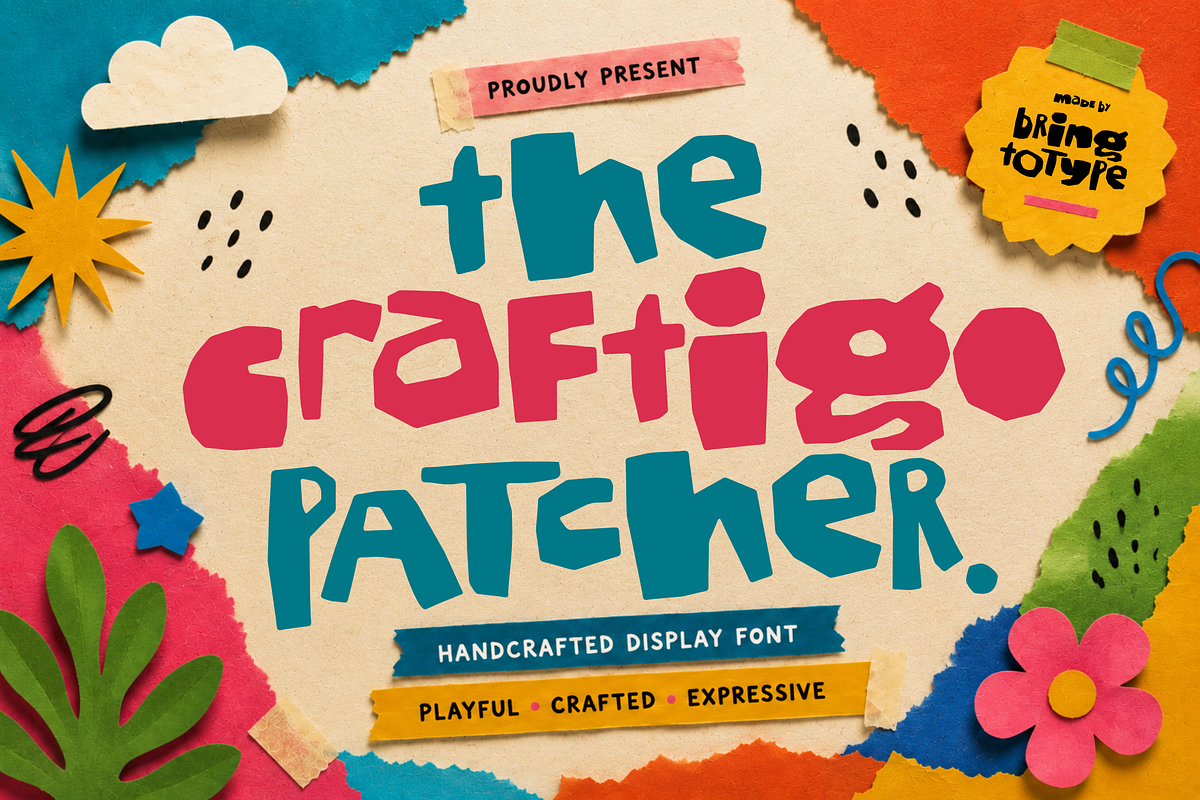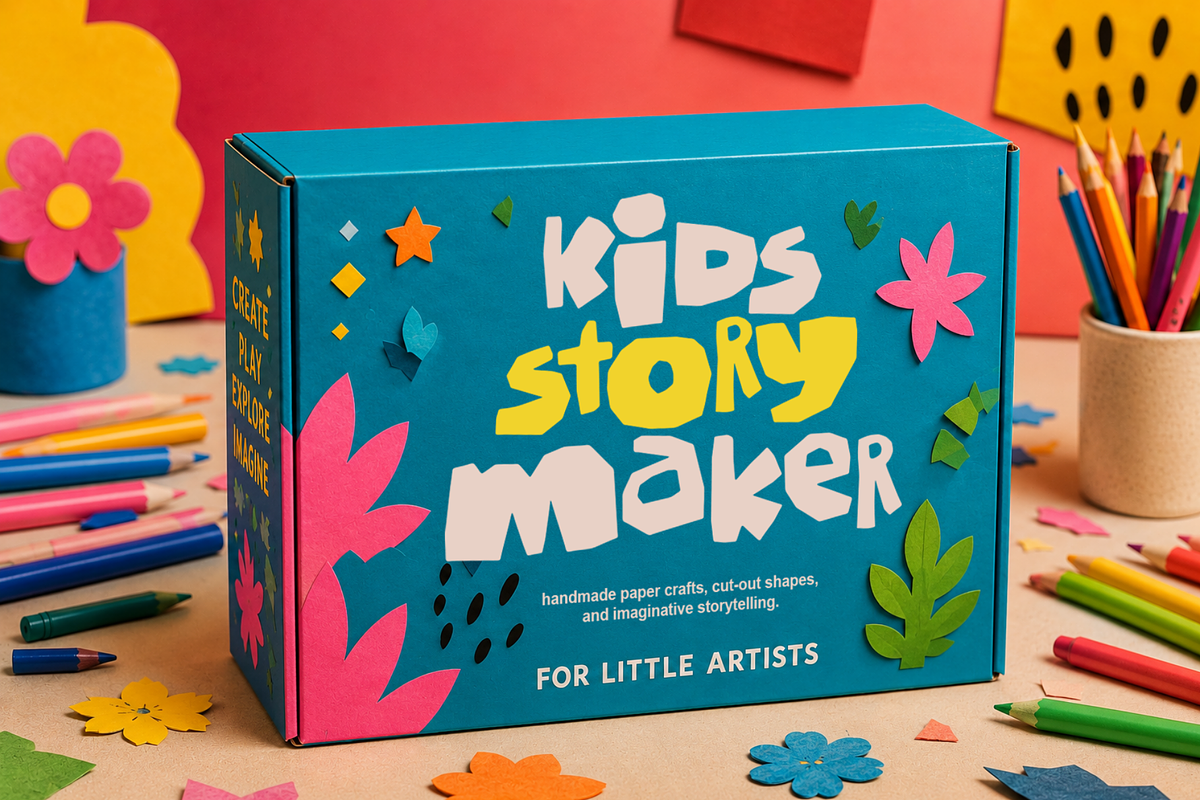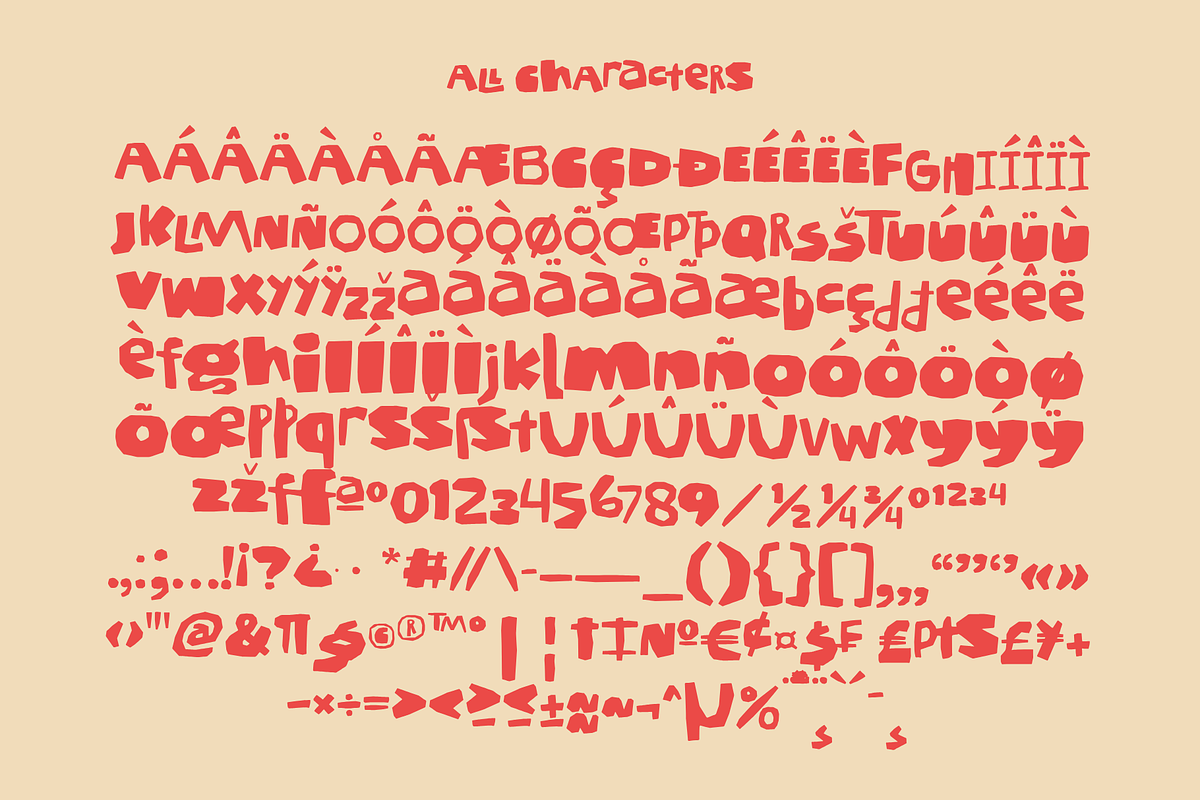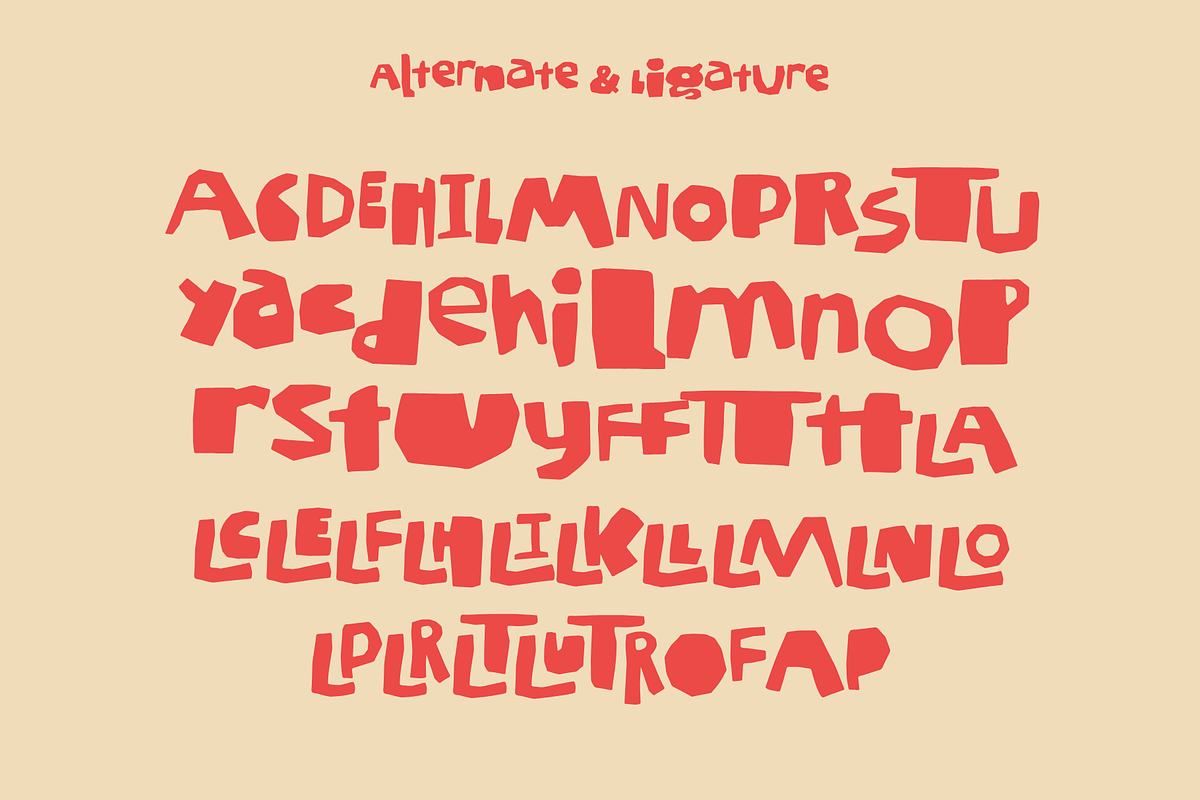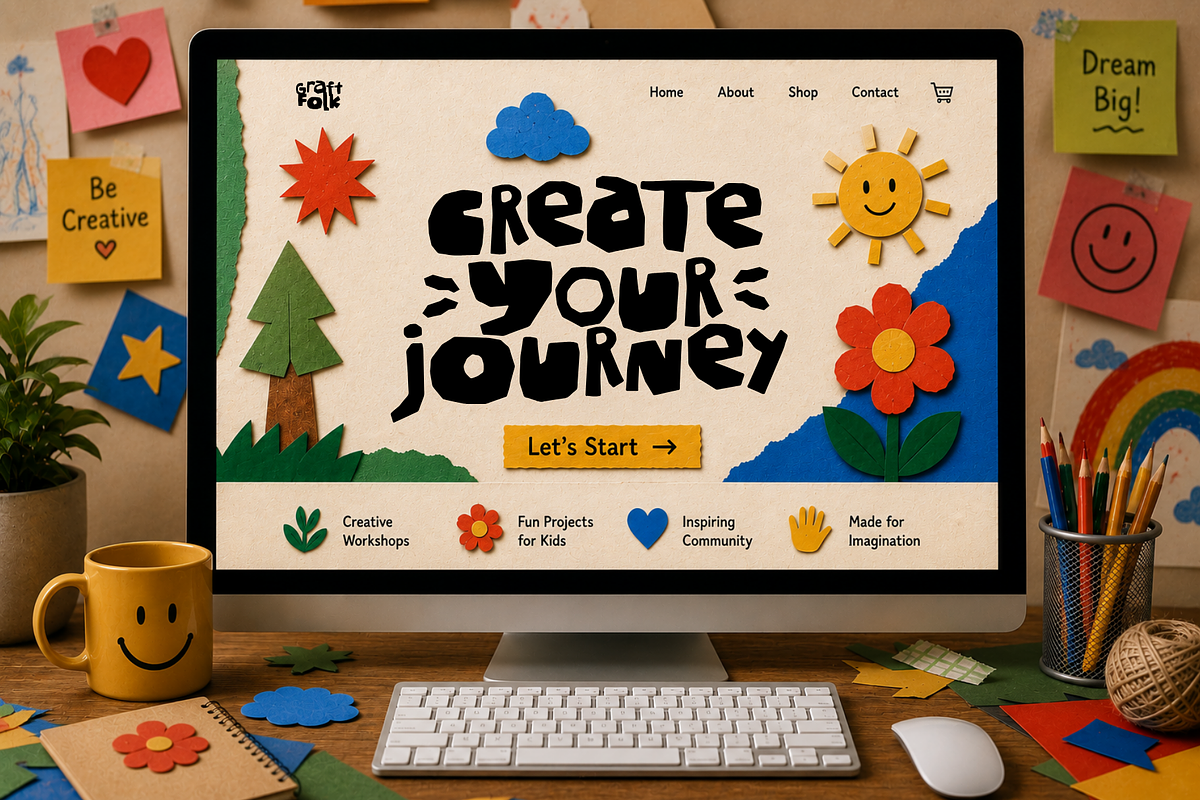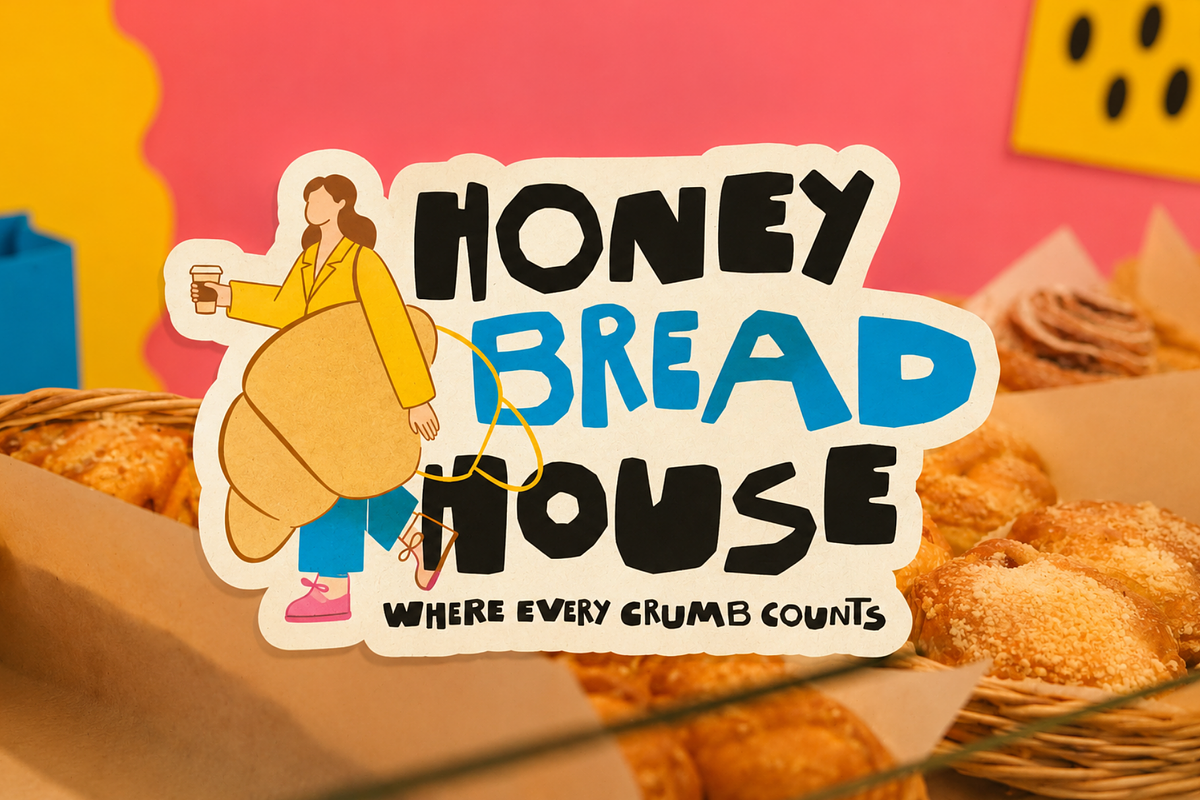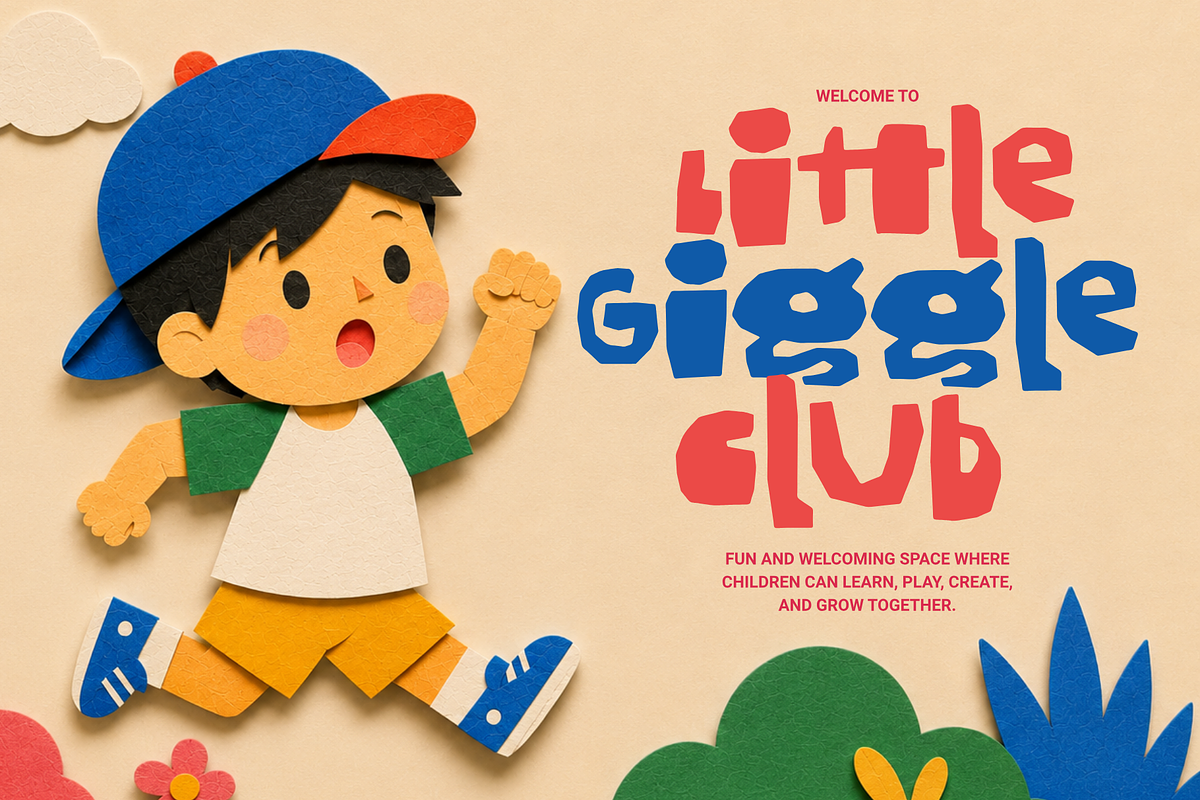
The Craftigo Patcher - Paper Cutout
THE CRAFTIGO PATCHER
Playful Cutout Display Font Handcrafted, Expressive, and Full of Creative Charm
THE CRAFTIGO PATCHER is a playful cutout display font inspired by the joyful world of paper crafts, handmade collages, and imaginative DIY creations. Featuring organic hand-cut shapes, bold irregular forms, and expressive letter construction, this typeface brings a cheerful and artistic personality to every design project.
Handmade Character with Paper-Cut Personality
Crafted to capture the authentic feel of scissors, colored paper, and creative experimentation, THE CRAFTIGO PATCHER embraces beautifully imperfect letterforms that celebrate the charm of handmade design. Its unique cutout-inspired shapes create a vibrant visual rhythm, making every word feel lively, approachable, and full of character.
Perfect for Creative & Kid-Friendly Projects
THE CRAFTIGO PATCHER shines across children's books, educational materials, toy packaging, craft brands, classroom resources, party invitations, creative workshops, social media content, product packaging, posters, and playful branding projects. Whether used for bold headlines or eye-catching display text, the font instantly adds warmth, fun, and handcrafted appeal.
Inspired by Creativity, Imagination, and Paper Crafts
Designed for creators who love expressive typography and artistic storytelling, THE CRAFTIGO PATCHER transforms ordinary designs into colorful visual experiences. Its playful spirit, handcrafted aesthetic, and cut-paper charm make it the perfect choice for projects that celebrate creativity, imagination, and joyful self-expression.